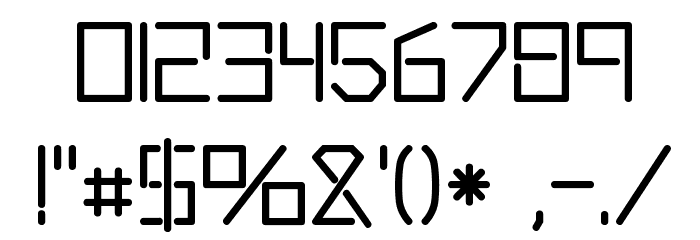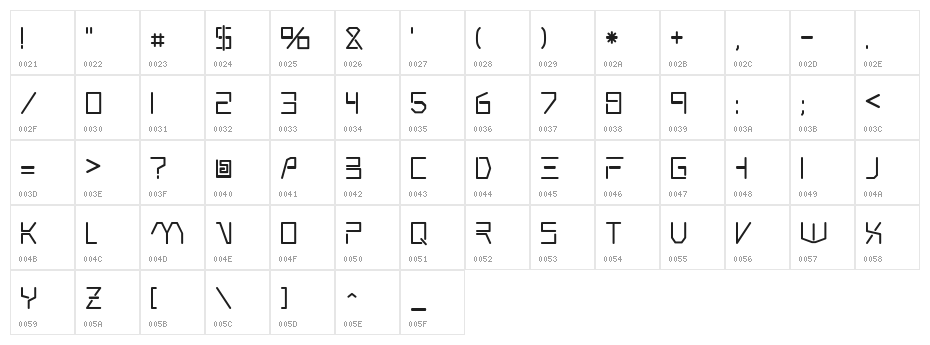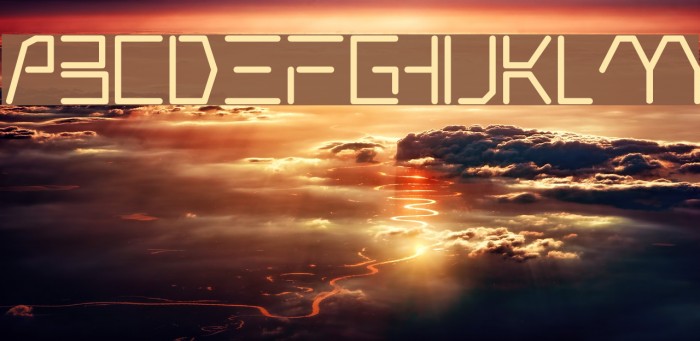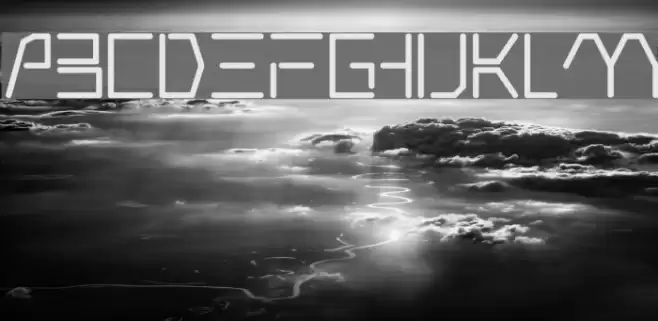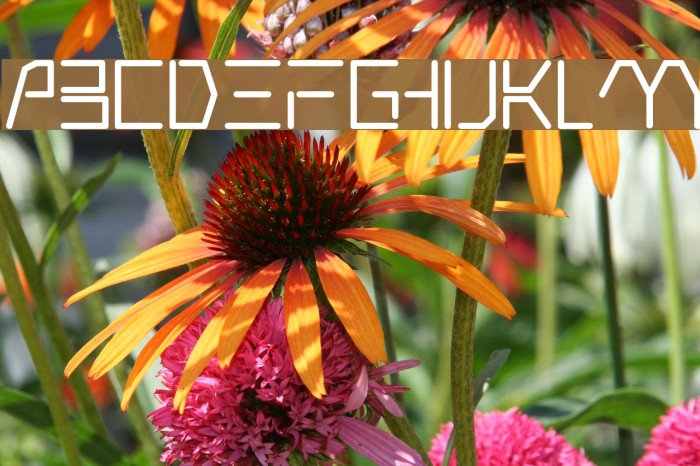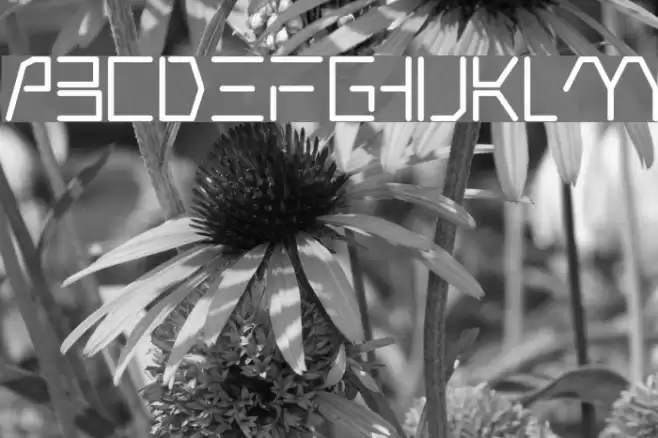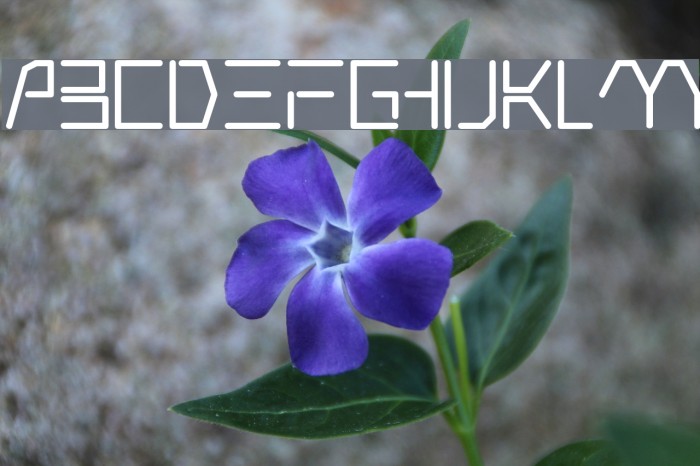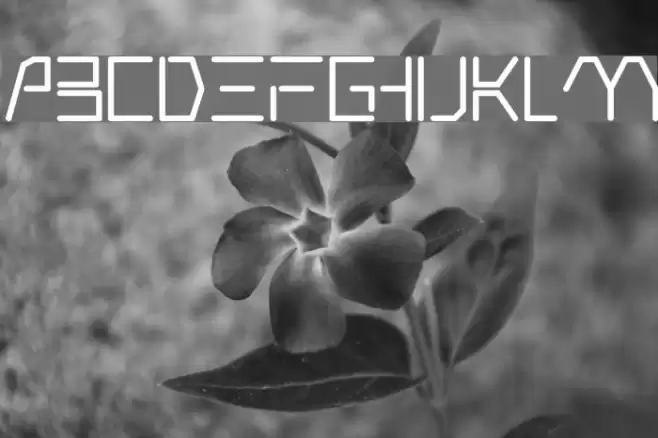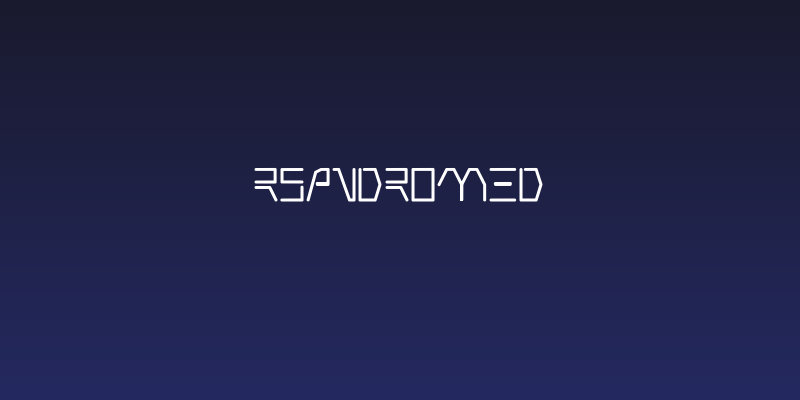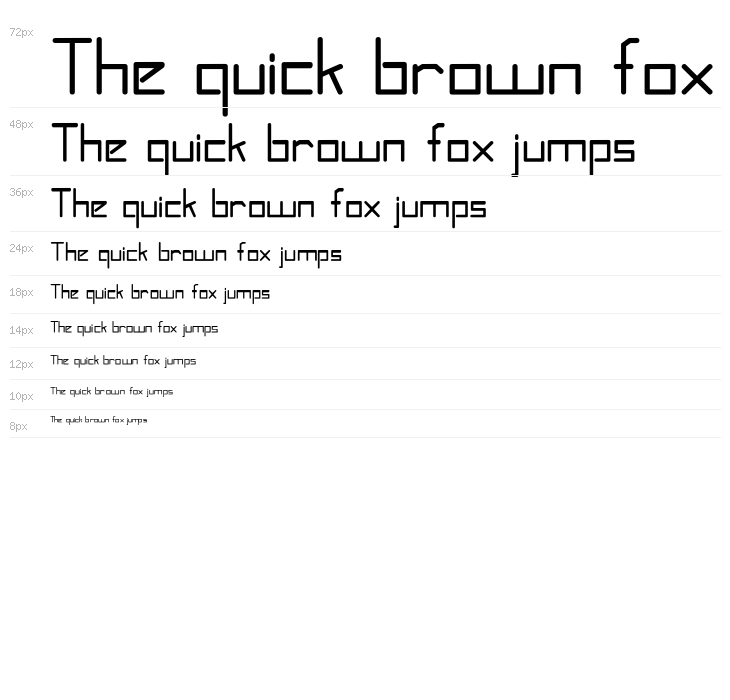
Rsandromed Font
Rsandromed Description
This font features a futuristic and geometric design, characterized by its angular and linear structure. Each character is composed of straight lines and sharp angles, giving it a technical and modern appearance. The uppercase and lowercase letters maintain a consistent style, with a uniform height and width that enhances readability. Numbers and special characters are designed with the same geometric precision, making them easily distinguishable. The overall aesthetic is clean and minimalistic, suitable for projects that require a contemporary and innovative look.
| Proposed Projects | Ideal for technology branding, sci-fi themed designs, digital interfaces, and modern advertising. |